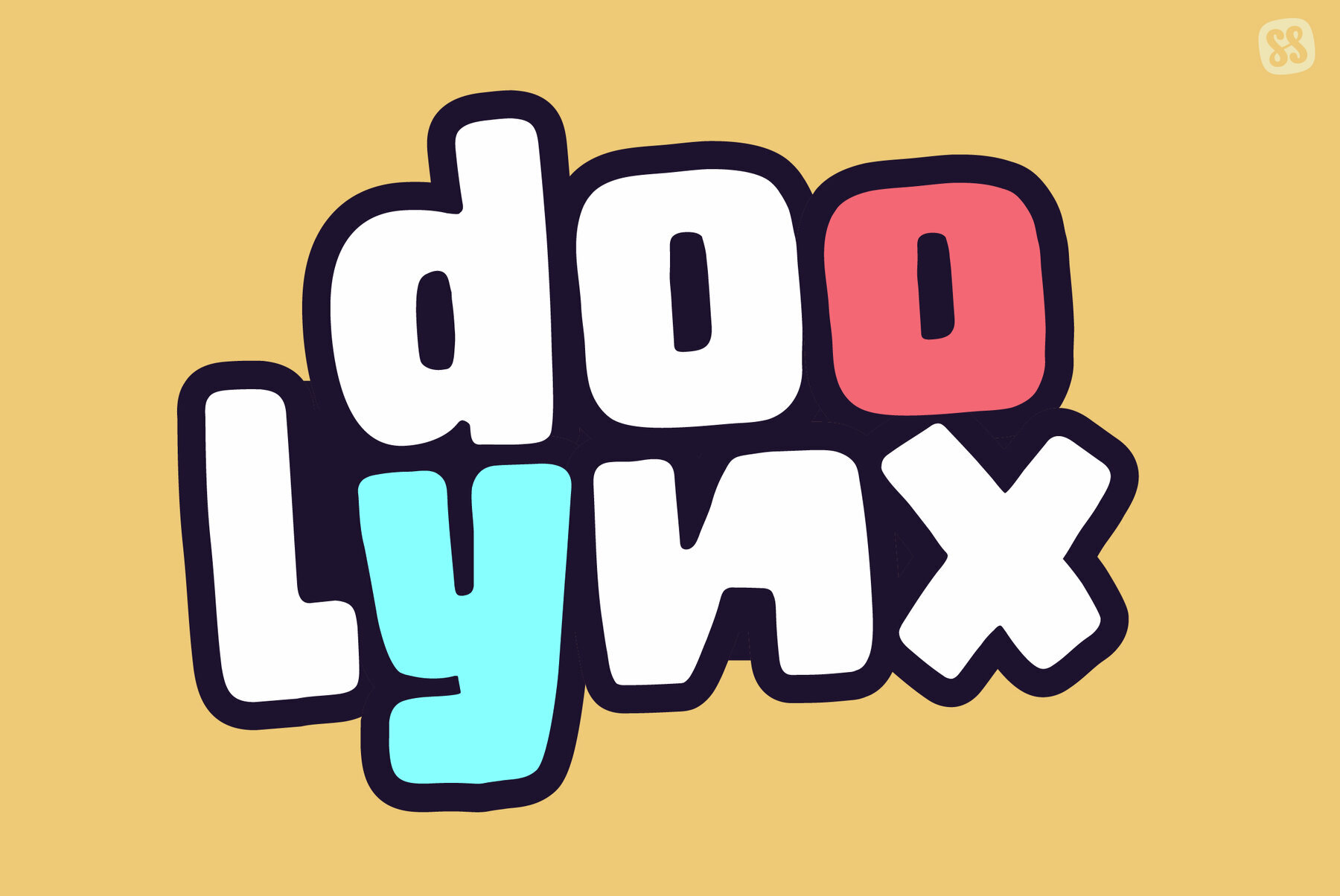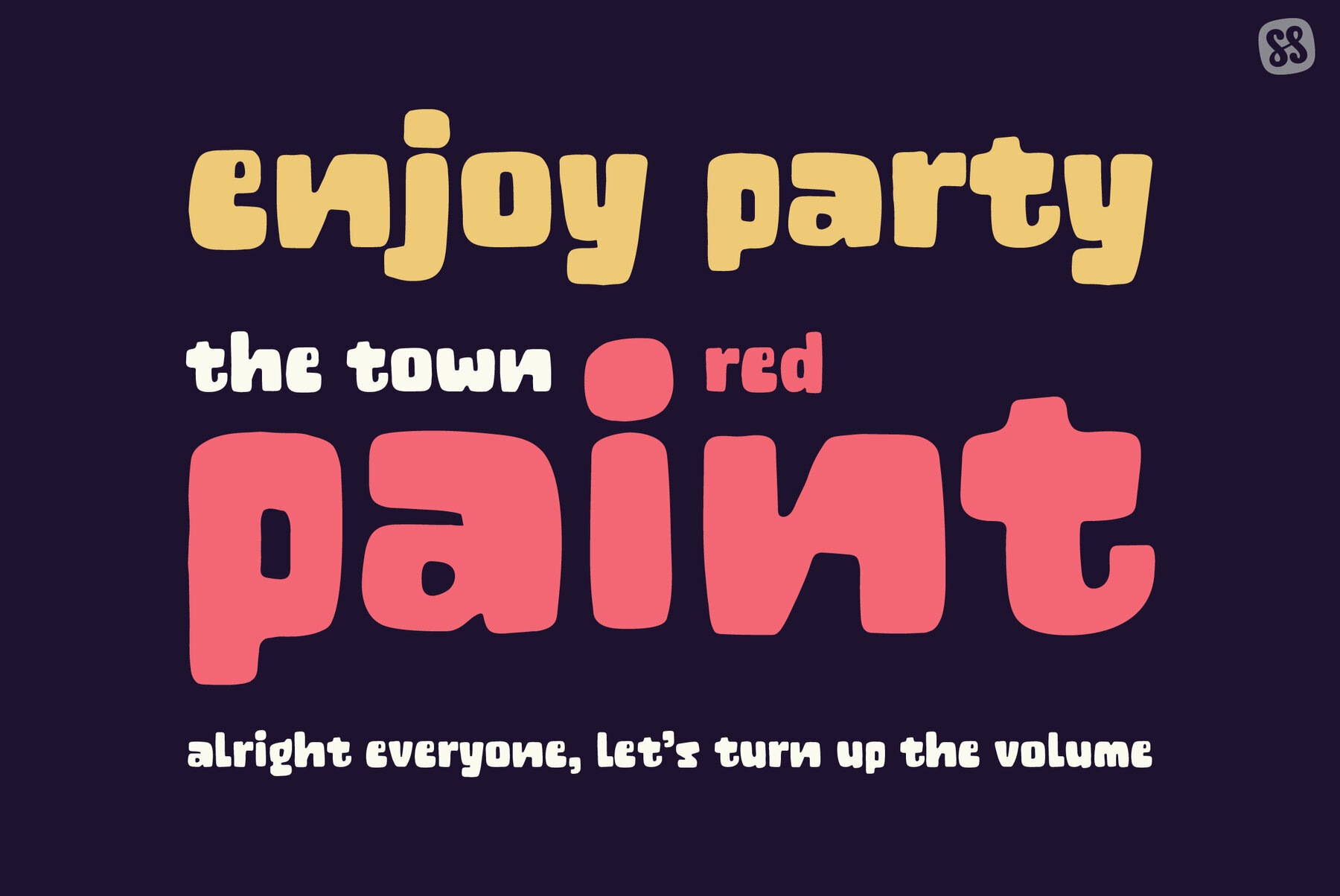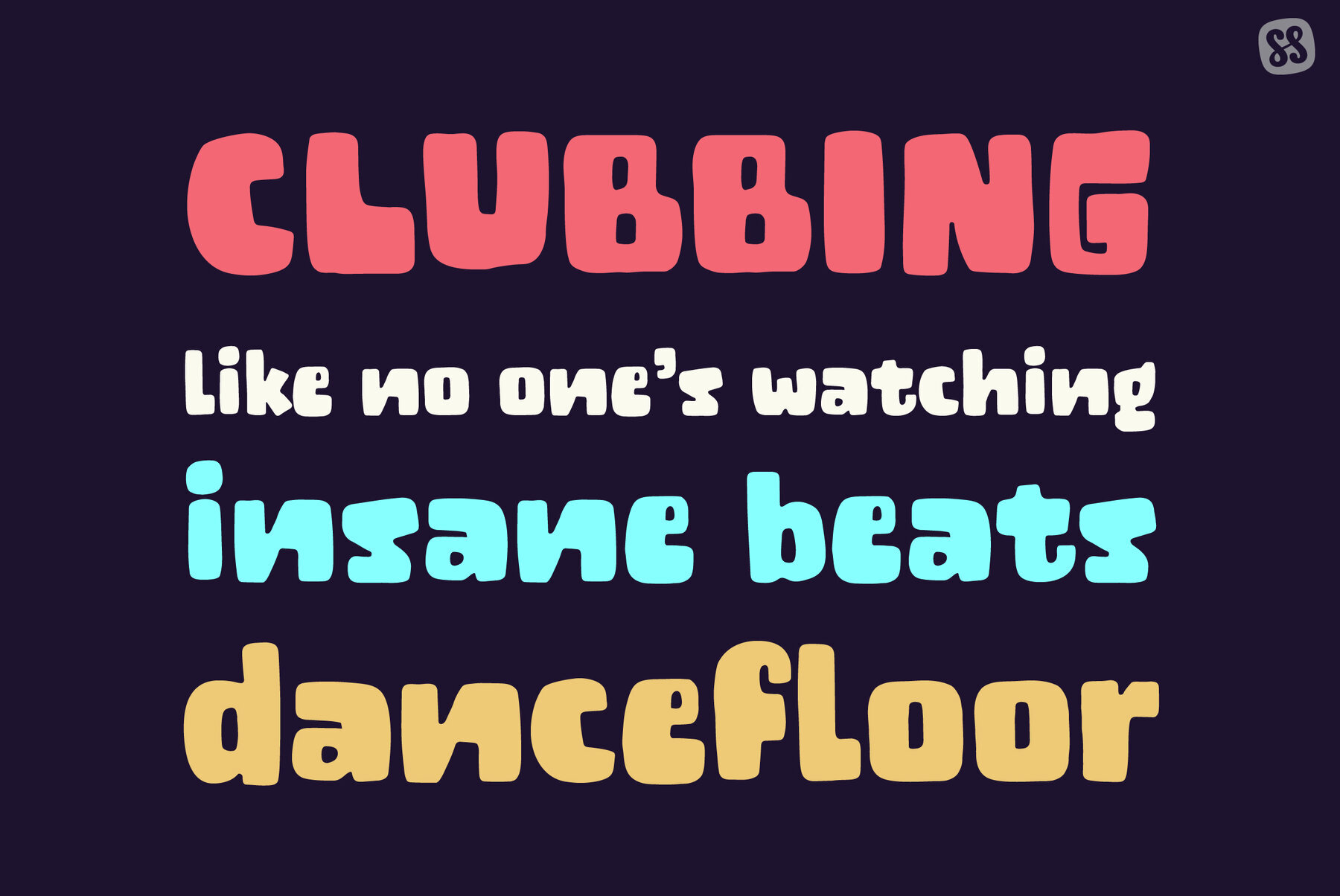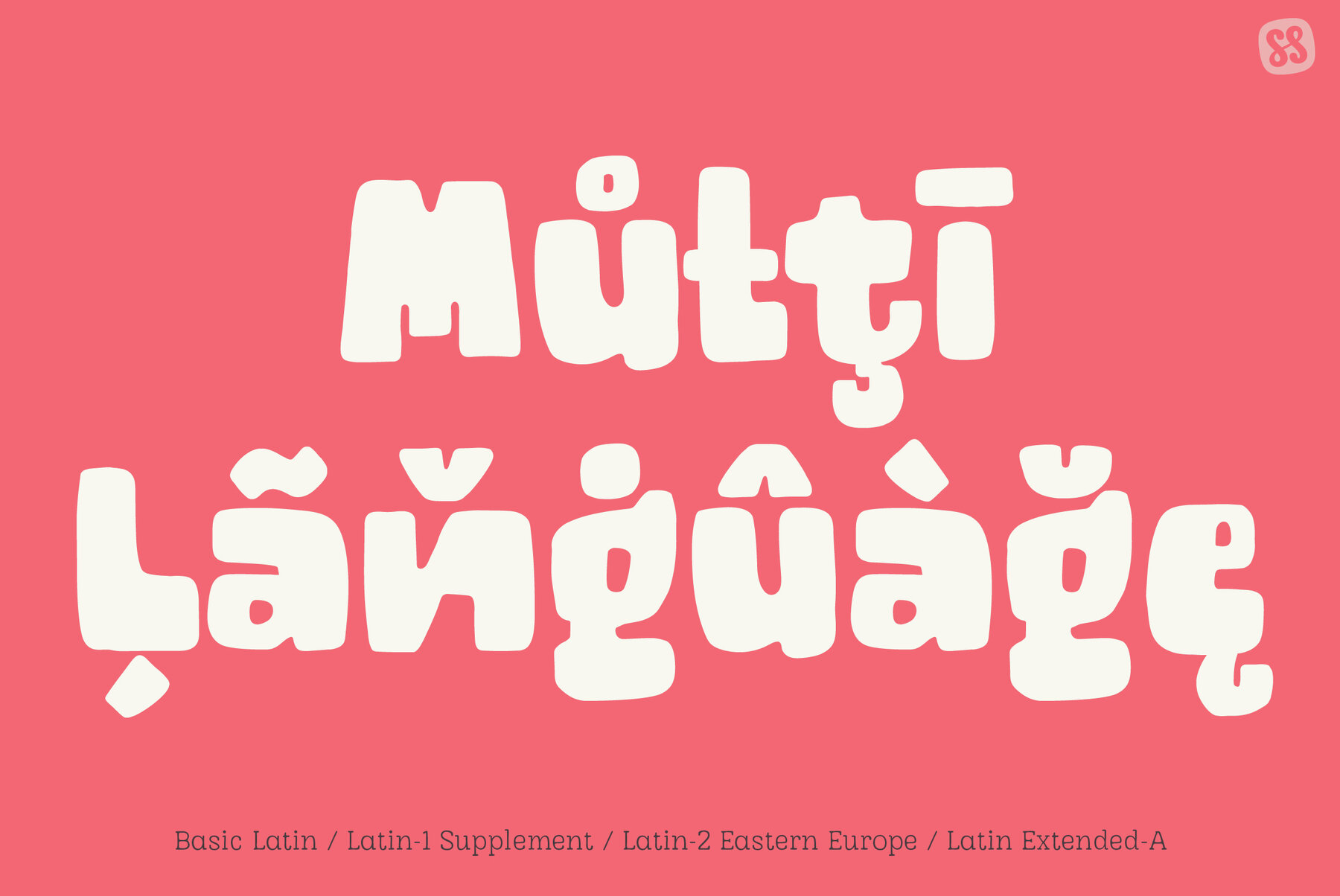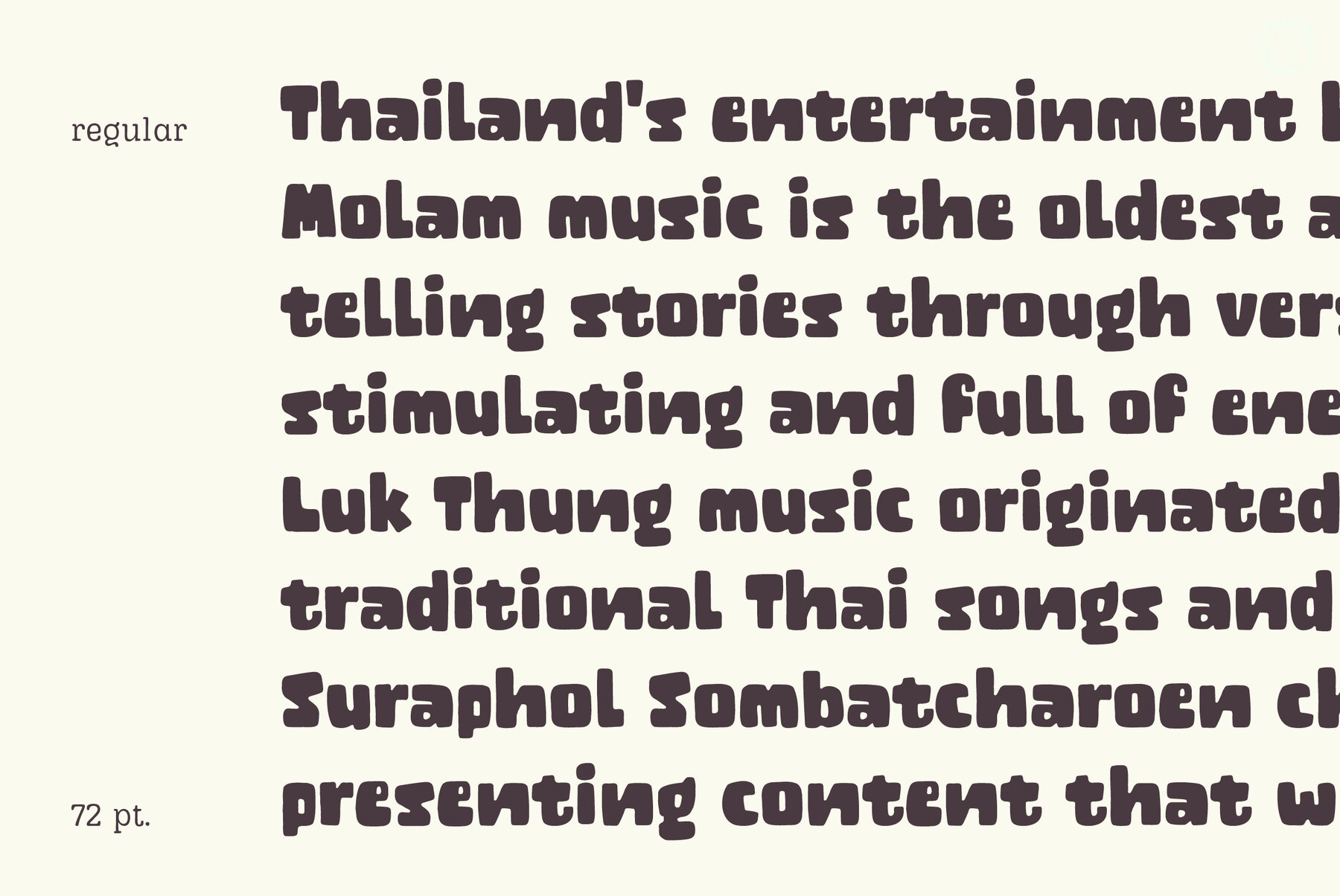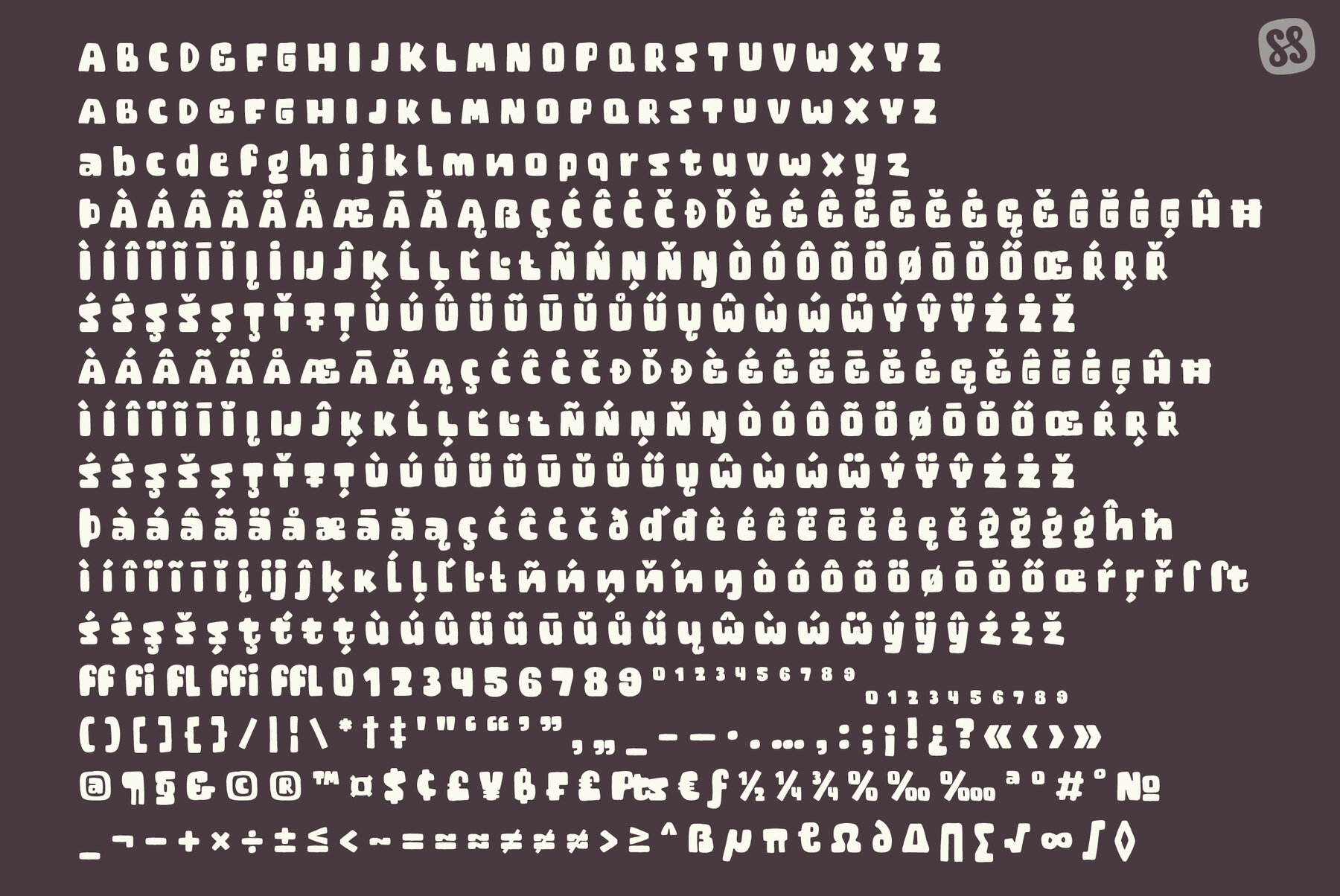
DOOLYNX Font
DOOLYNX Regular
Discover DOOLYNX, a unique handcrafted display font that brings boundless creativity to your projects. With its rounded, hefty forms, this font exudes a casual and welcoming vibe, perfect for all your creative needs. Its organic, playful sketching style makes DOOLYNX the embodiment of attraction and engagement across a wide range of themes. Infuse your ideas with vitality and a genuine touch thanks to the sprightly twist of DOOLYNX. Whether you’re working on playful themes or vibrant designs, this font offers an ideal choice to make your projects stand out. Let DOOLYNX add a resonating warmth and charm to your creations.DOOLYNX: A World of Creativity